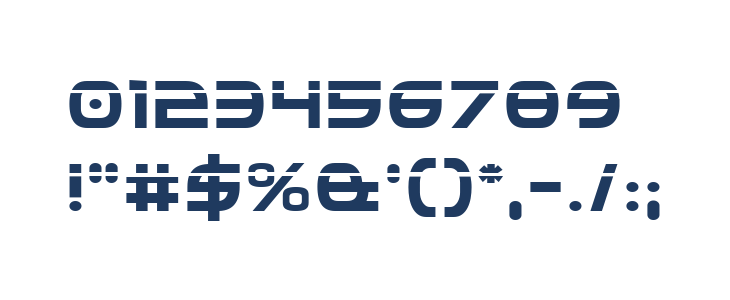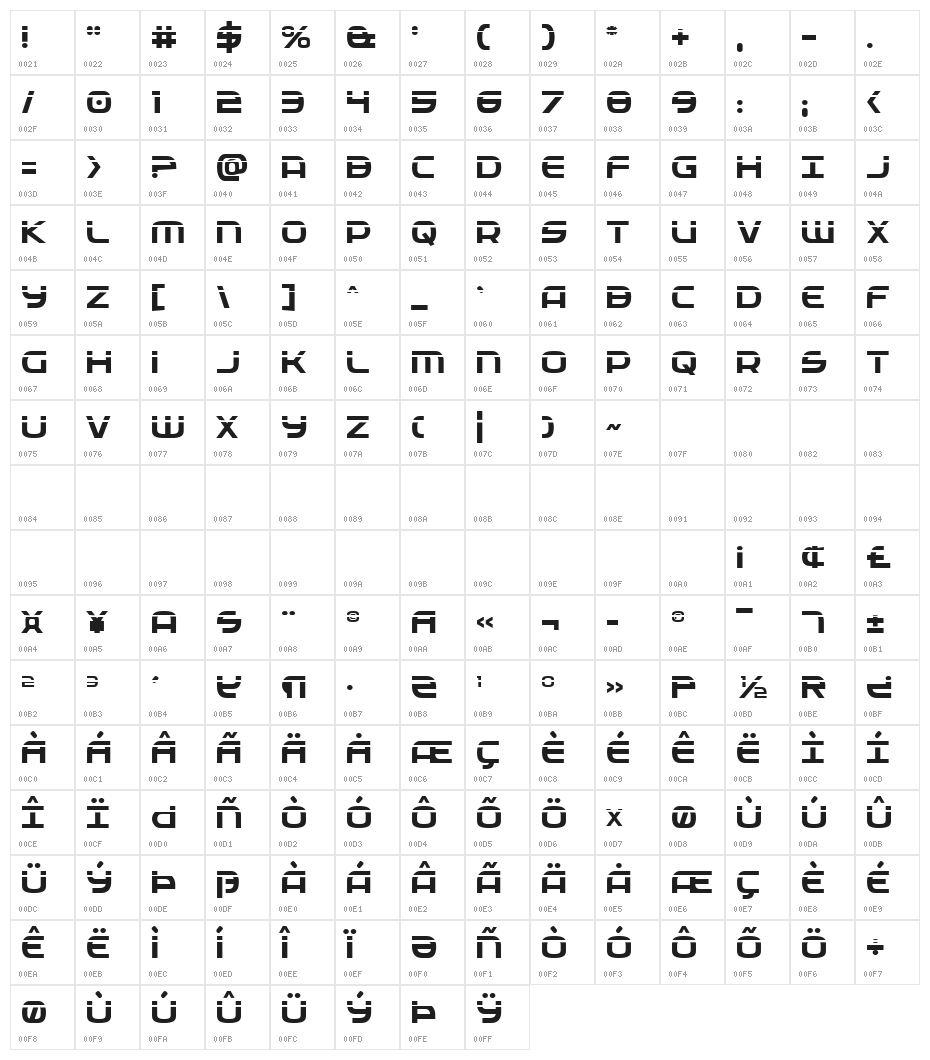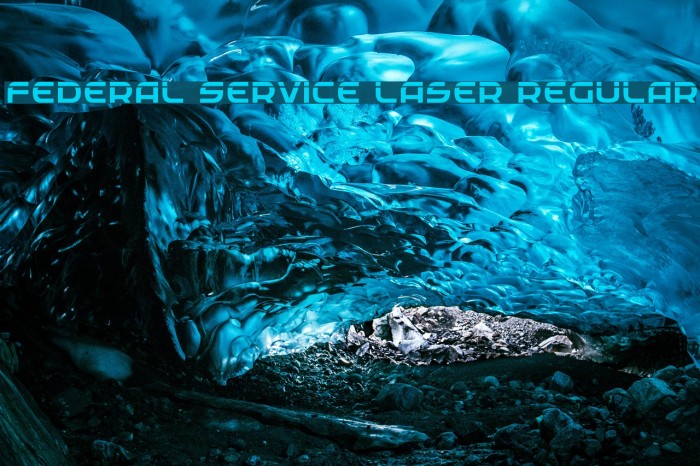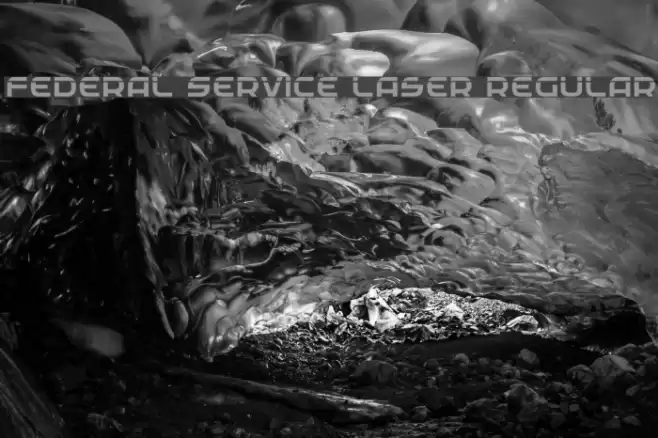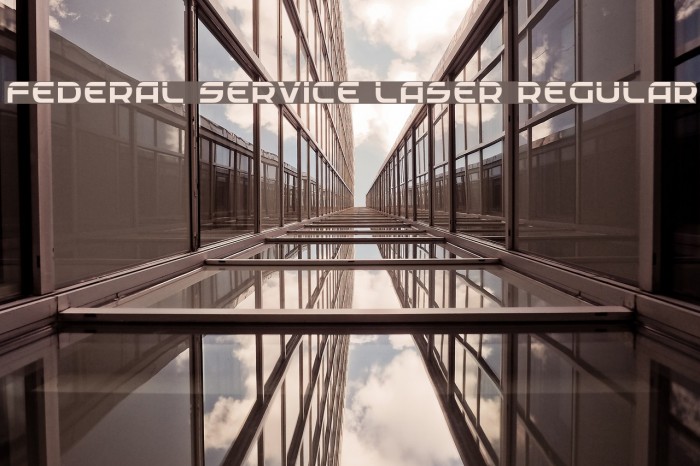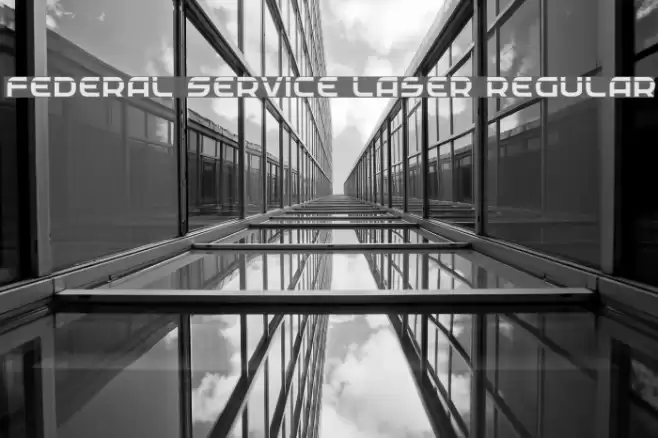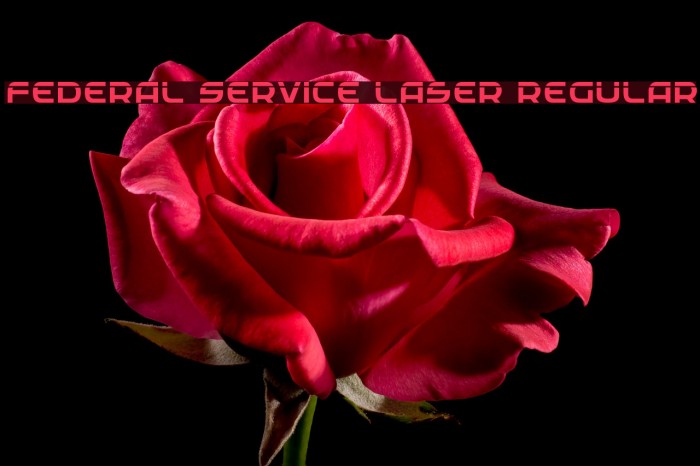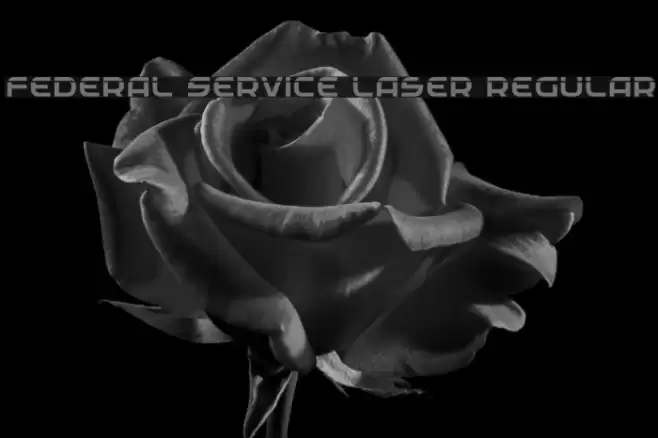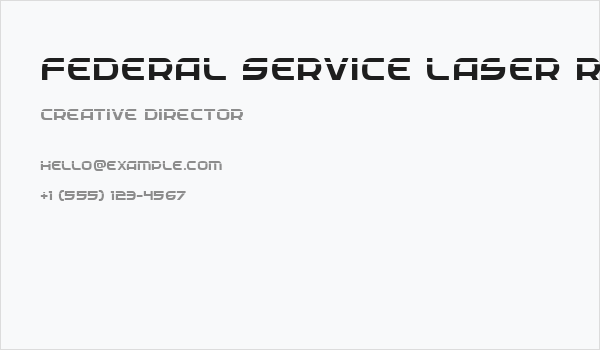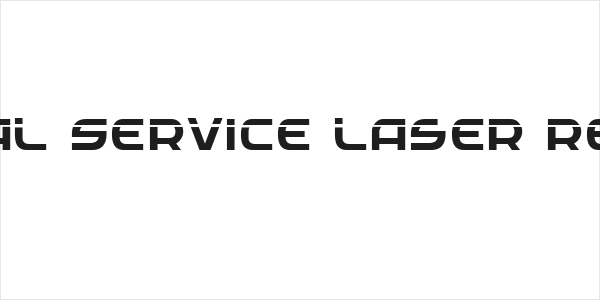
Federal Service Laser Regular Font
Federal Service Laser Regular Description
This font exhibits a futuristic and geometric design, characterized by its bold and angular letterforms. The characters are constructed with sharp edges and clean lines, creating a sense of precision and modernity. The uppercase letters maintain a consistent height, while the lowercase letters are slightly shorter, preserving readability. The numerals are distinct and align well with the overall style, ensuring clarity in numerical data presentation. Special characters are uniquely styled, adding to the font's distinctive appearance. This typeface is ideal for projects that require a contemporary and tech-savvy aesthetic.